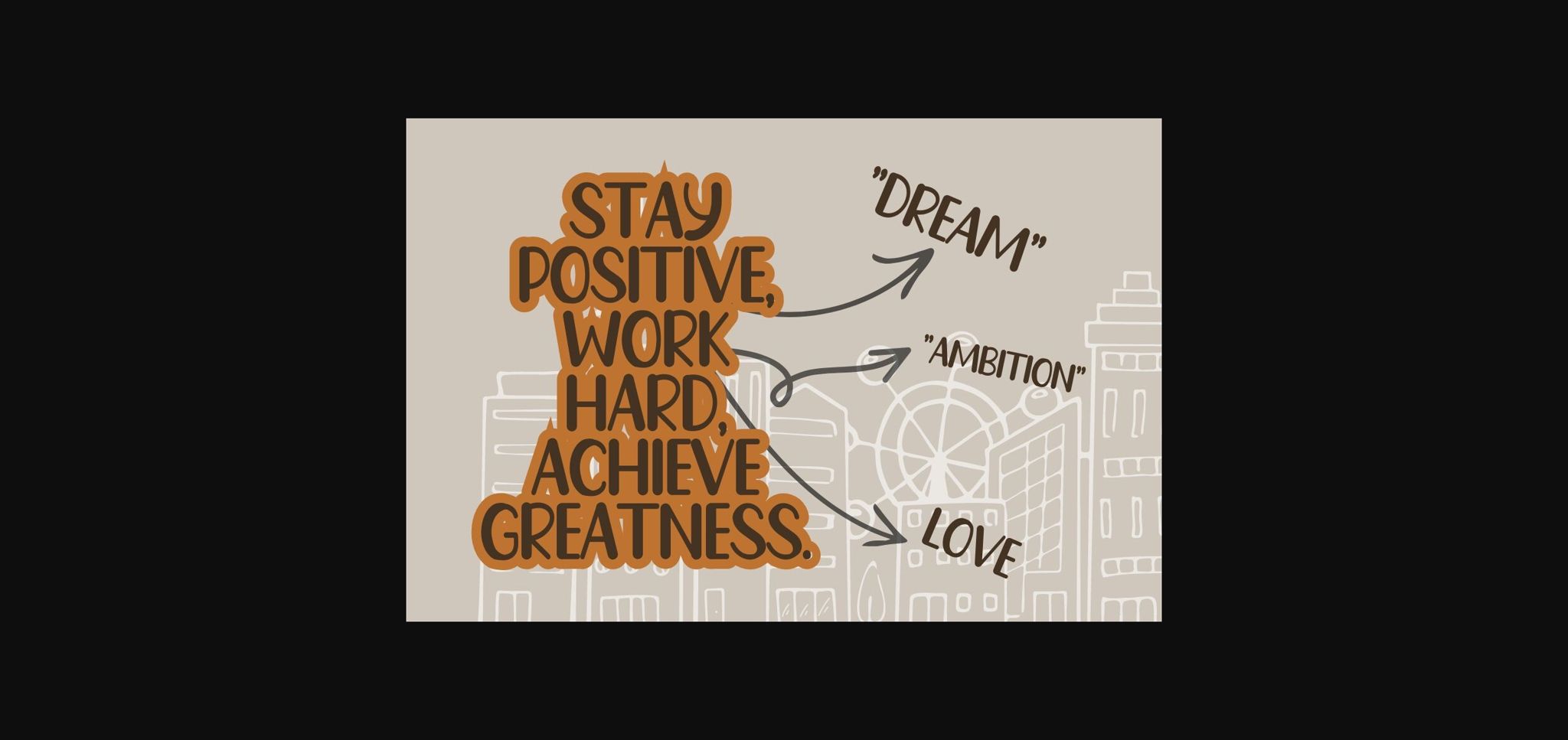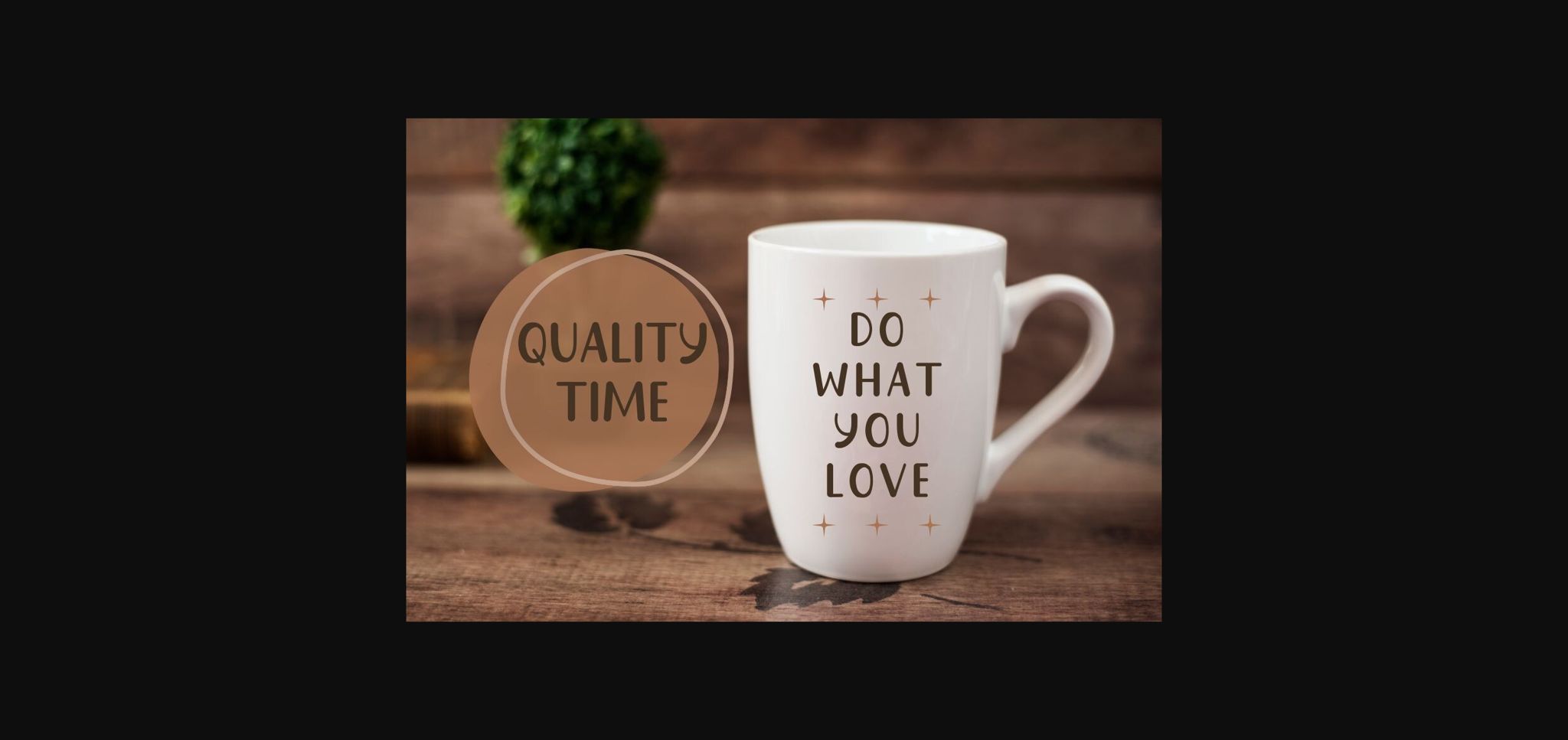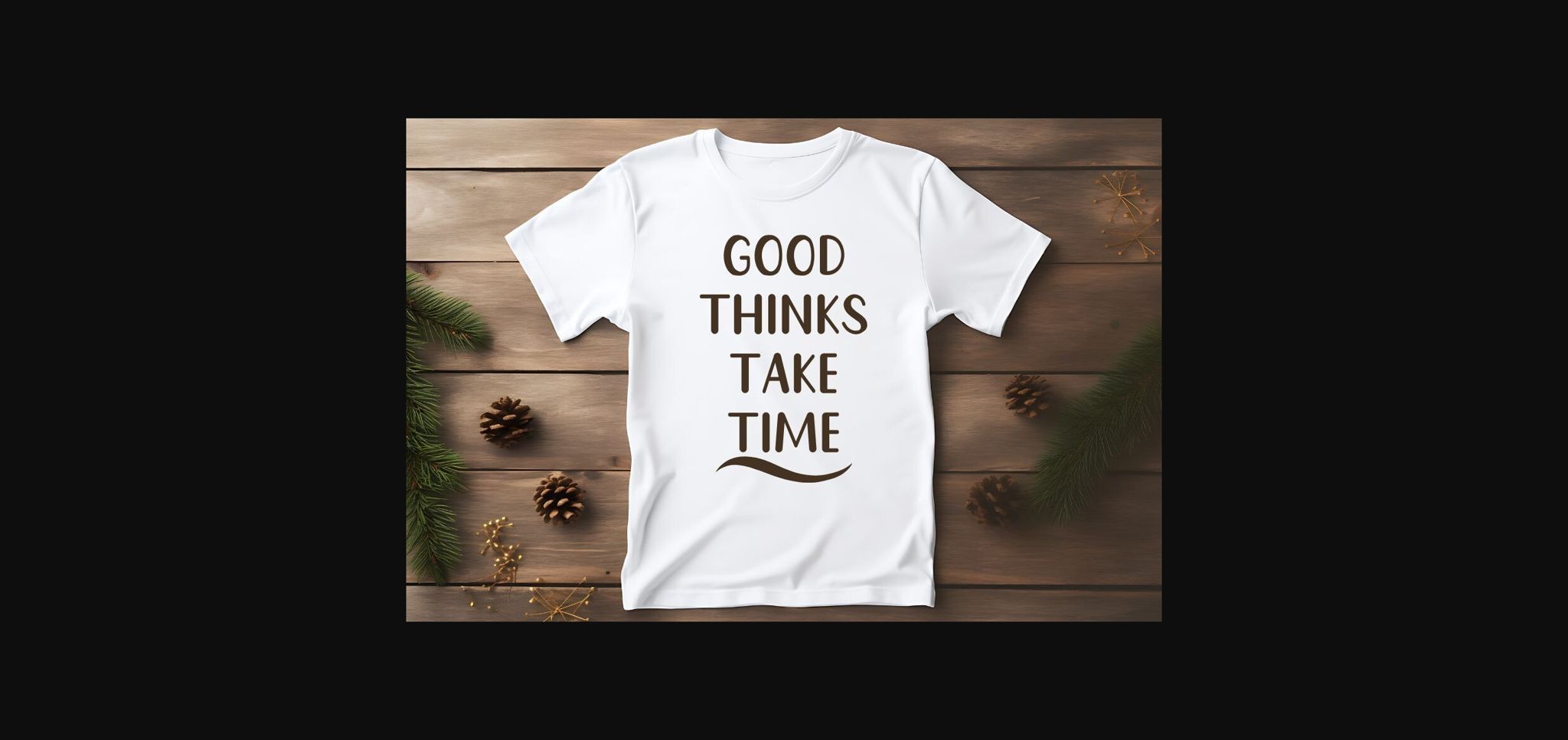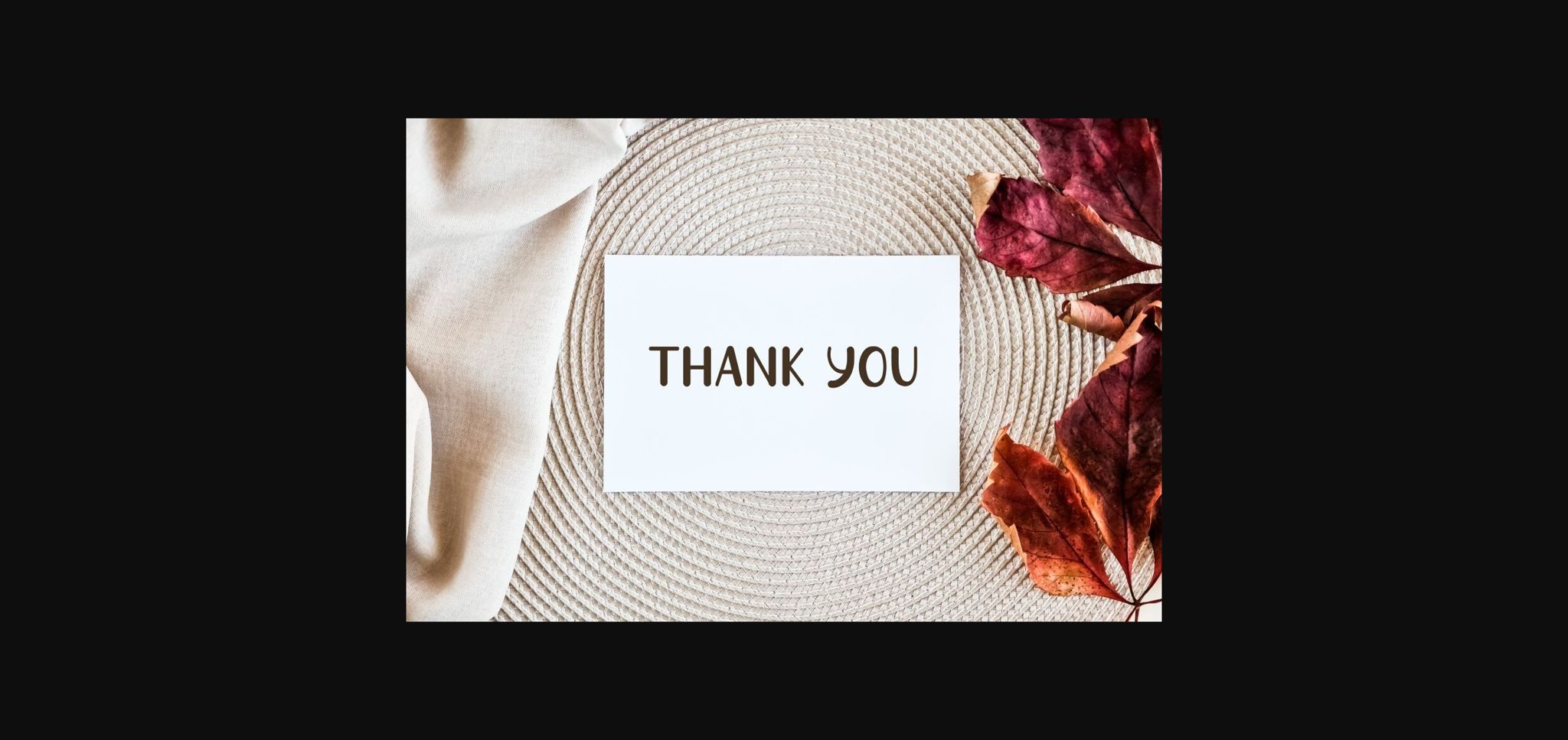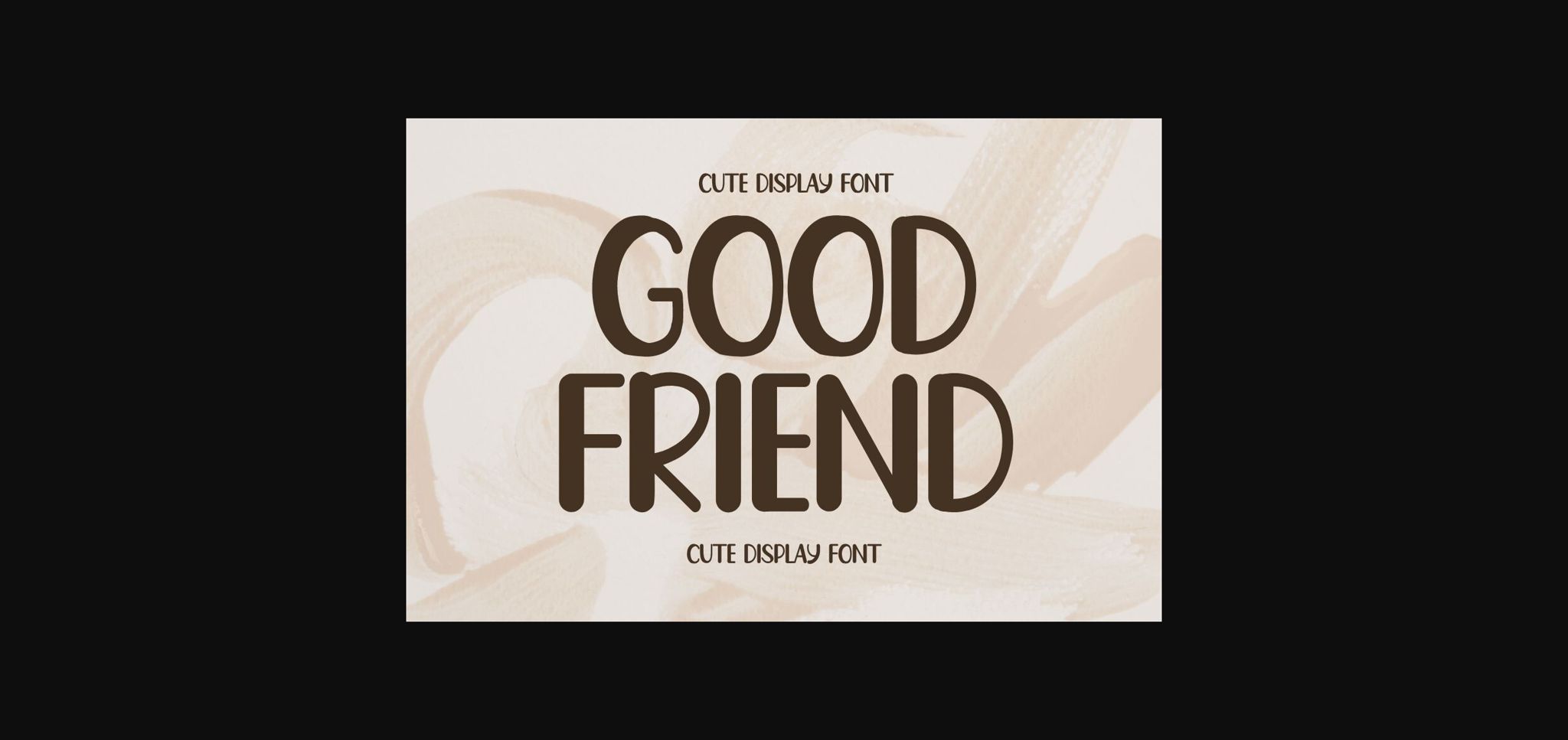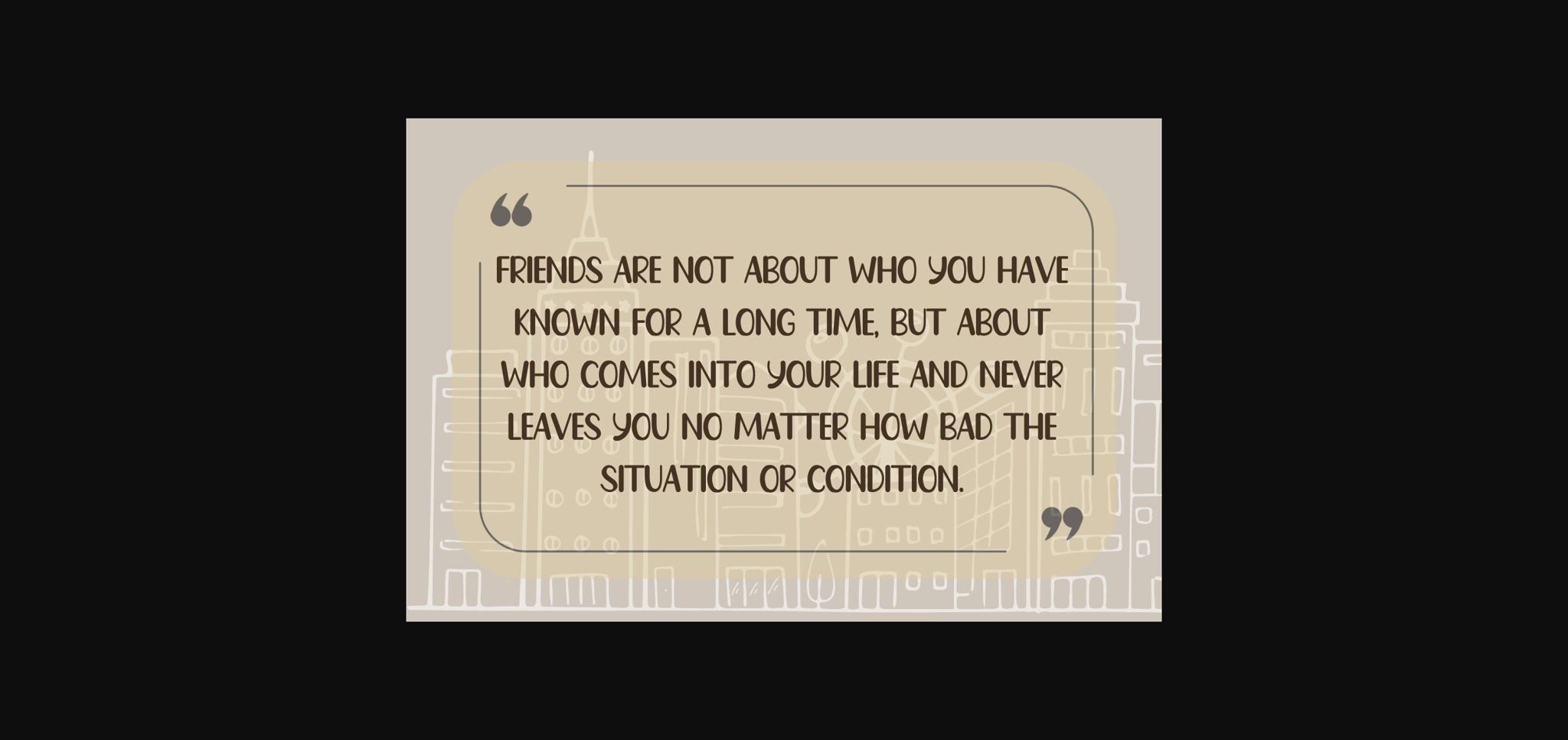
Good Friend Font
About Good Friend Font
Unleash your creativity with Good Friend, a vibrant and joyous typeface meticulously crafted to add a distinct charisma to your artistry. Seamlessly integrates into personalized cards, inventive crafts, and engaging digital patterns, its playful charm vividly transforming digital domains, imparting a sprinkling of enchanting attraction to online journals — a perfectionist’s paradise. Good Friend acts as a consistent ally in your artistic voyage, exhibiting adaptability over a broad range of applications. This captivating font powers your inventive passion, metamorphosing your efforts into appealing visual stories that captivate.